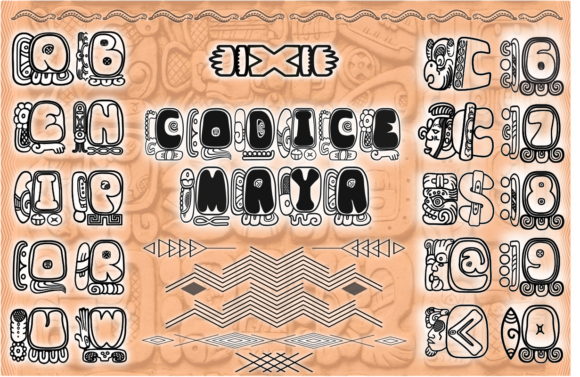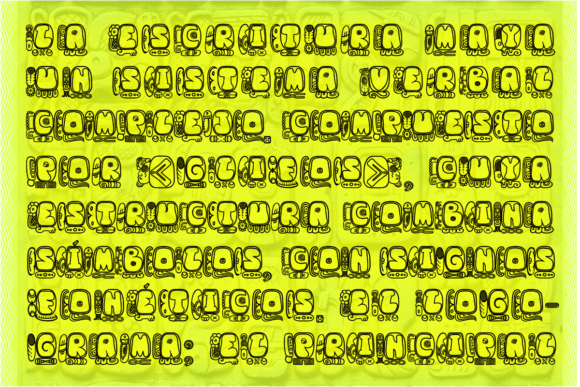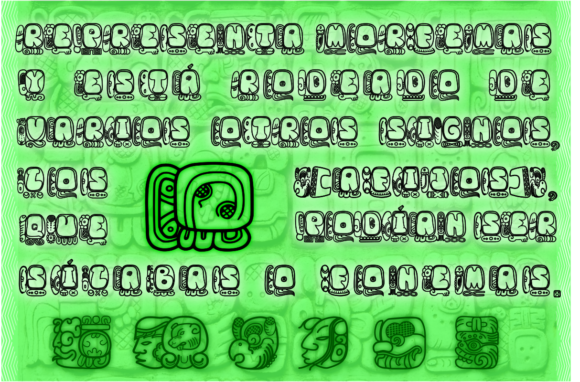
Codice Maya Font: Unlocking Creative Potential with a Unique Decorative Font
Codice Maya is an incredibly unique decorative font that has been masterfully designed to become a true favorite among designers and crafters. With its distinctive style and versatility, this font has the potential to bring each of your creative ideas to the highest level. In this article, we’ll dive into the world of Codice Maya, exploring its features, benefits, and uses, as well as provide tips on how to make the most of this exceptional font.
The Story Behind Codice Maya
Codice Maya is a decorative font that boasts a rich history, inspired by the ancient Mayan civilization. The font’s design is a beautiful blend of traditional and modern elements, making it perfect for a wide range of creative projects. Whether you’re working on a logo, branding materials, or digital content, Codice Maya is sure to add a touch of elegance and sophistication.
Key Features of Codice Maya
- Unique and Decorative: Codice Maya’s distinctive style sets it apart from other fonts, making it perfect for designers looking to add a touch of personality to their work.
- Highly Versatile: This font can be used for a wide range of projects, from logos and branding materials to digital content and print materials.
- Elegant and Sophisticated: Codice Maya’s design is both elegant and sophisticated, making it perfect for projects that require a touch of luxury.
- Easy to Read: Despite its decorative nature, Codice Maya is highly legible, making it perfect for use in body text and other applications where readability is key.
Benefits of Using Codice Maya
So why choose Codice Maya for your next project? Here are just a few benefits of using this exceptional font:
- Adds Personality: Codice Maya’s unique style allows you to add a touch of personality to your work, setting you apart from the competition.
- Enhances Brand Identity: With its elegant and sophisticated design, Codice Maya can help to enhance your brand’s identity and create a lasting impression.
- Perfect for Creative Projects: Whether you’re working on a logo, brochure, or digital content, Codice Maya is the perfect choice for creative projects that require a touch of luxury.
Using Codice Maya in Your Designs
So how can you make the most of Codice Maya in your designs? Here are a few tips:
- Pair with Neutral Fonts: Pair Codice Maya with neutral fonts to create a beautiful contrast and add visual interest to your design.
- Use for Headings and Titles: Codice Maya is perfect for use in headings and titles, where its decorative style can really shine.
- Experiment with Colors: Don’t be afraid to experiment with different colors and textures to really make Codice Maya pop.
Codice Maya in the World of Crafting
Codice Maya is not just limited to digital design – it’s also a great choice for crafters and makers. Here are a few ways you can use Codice Maya in your crafting projects:
- Hand Lettering: Use Codice Maya as inspiration for your hand lettering projects, or print out the font to use as a guide.
- Journaling and Scrapbooking: Add a touch of elegance to your journaling and scrapbooking projects with Codice Maya.
- DIY Signs and Decor: Use Codice Maya to create beautiful DIY signs and decor for your home or office.
| Font Name | Codice Maya Font |
| Author | Galeria Martinez Luna |
In conclusion, Codice Maya is an incredibly unique decorative font that has the potential to bring each of your creative ideas to the highest level. With its distinctive style, versatility, and elegance, this font is perfect for designers, crafters, and makers looking to add a touch of personality and sophistication to their work. Whether you’re working on a logo, digital content, or crafting project, Codice Maya is sure to be a true favorite.